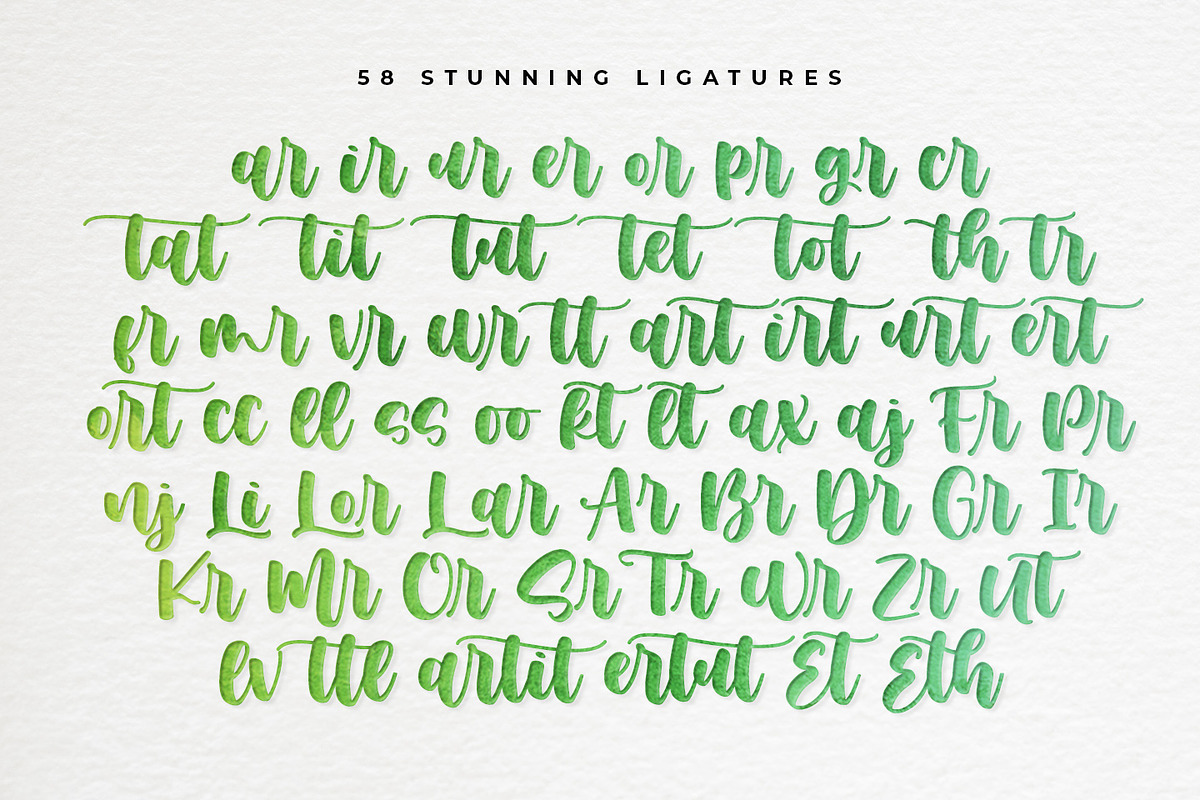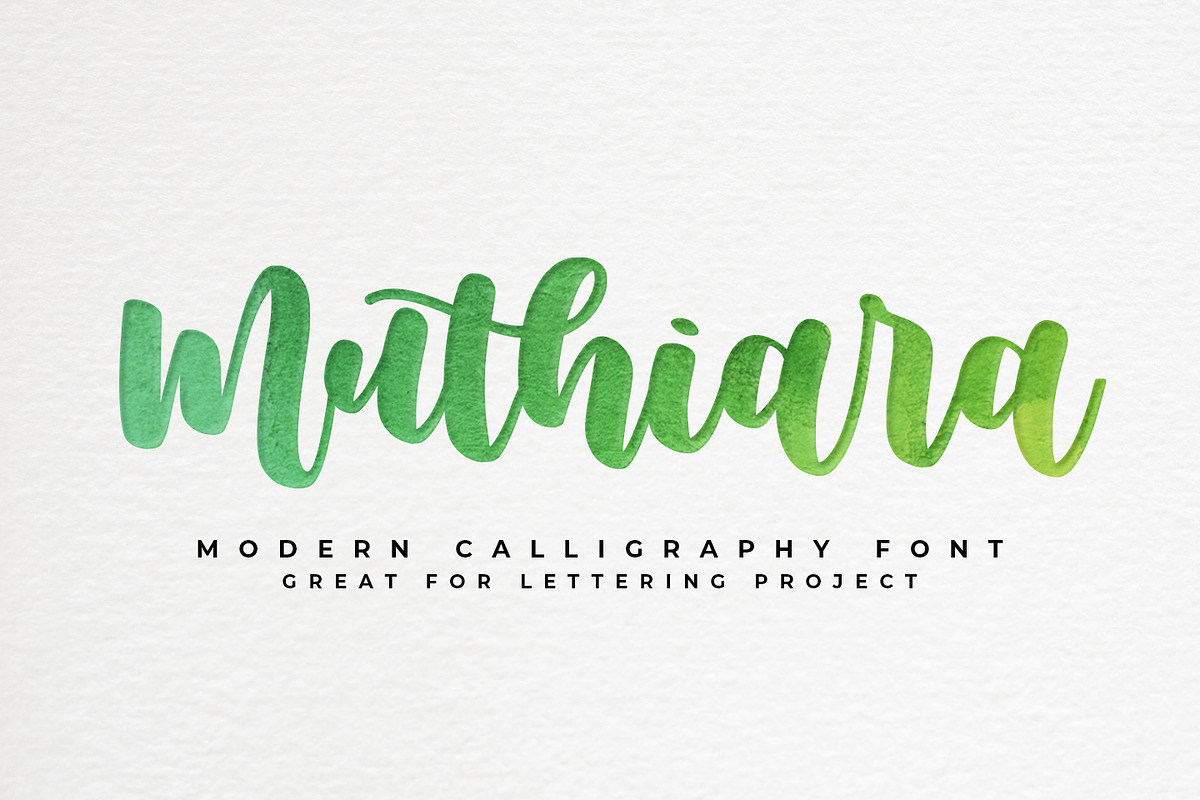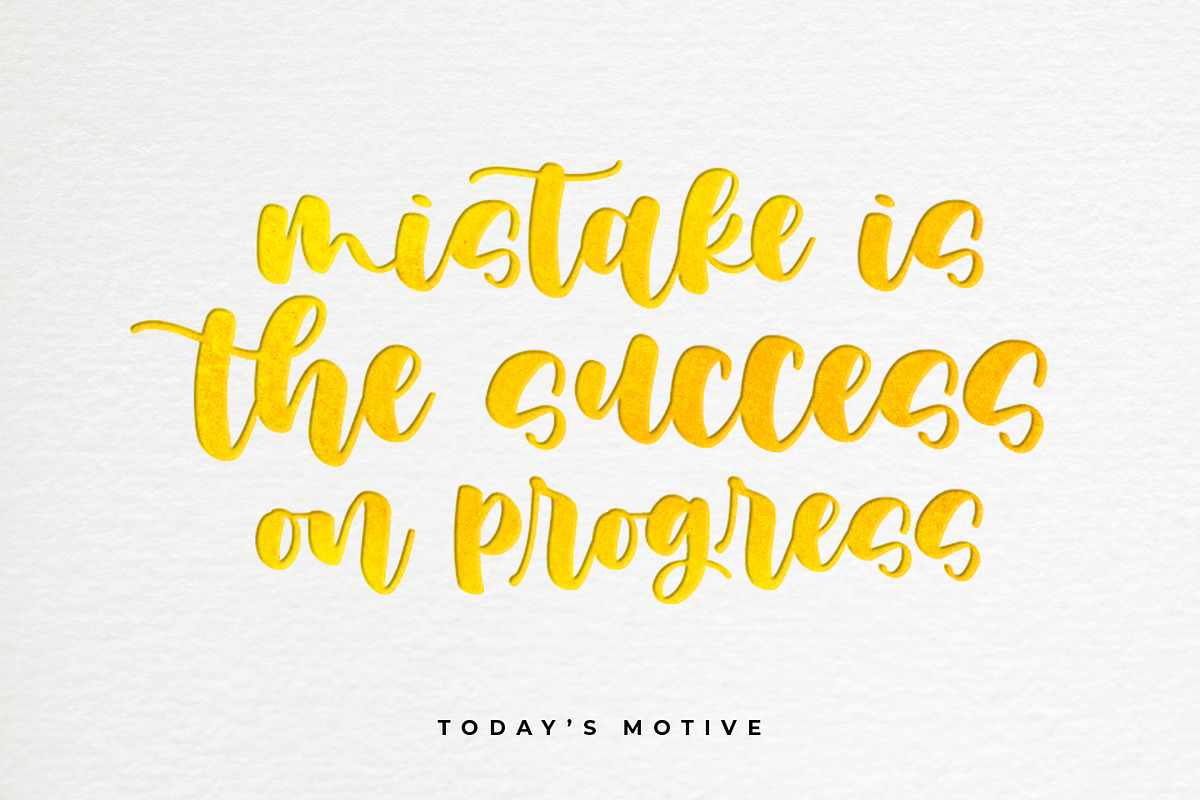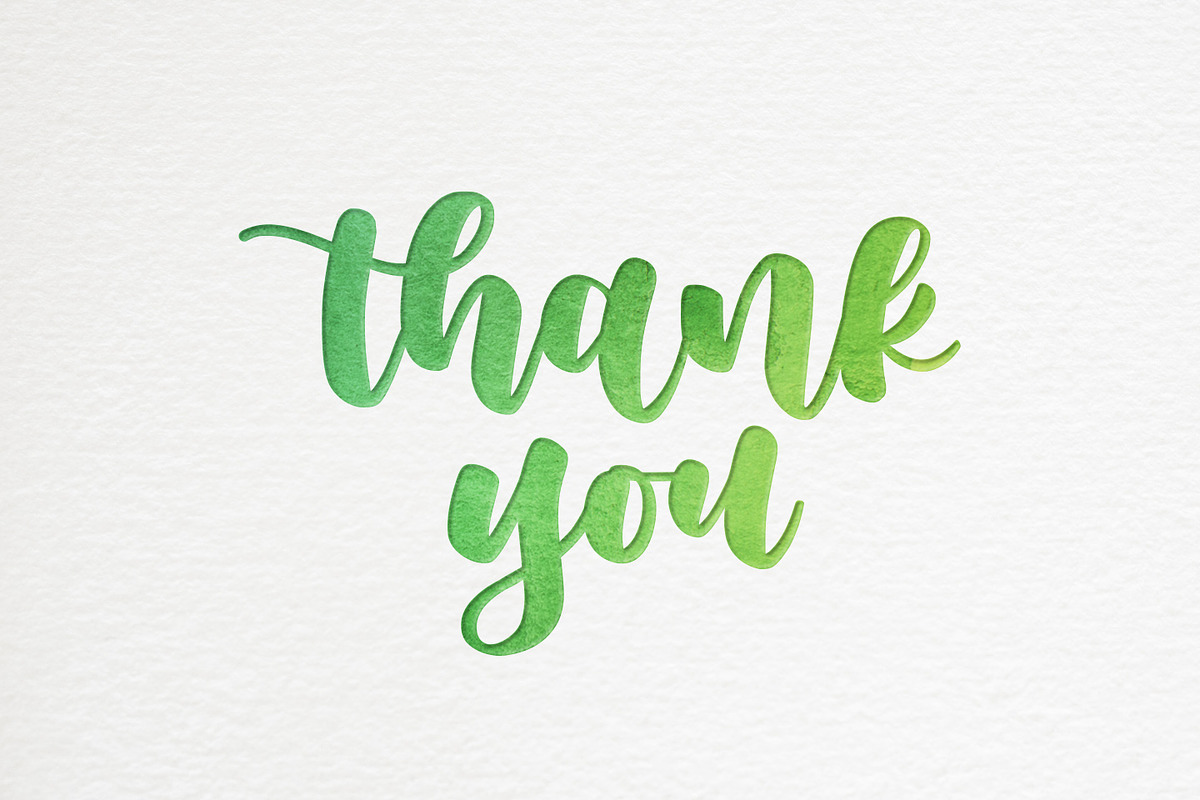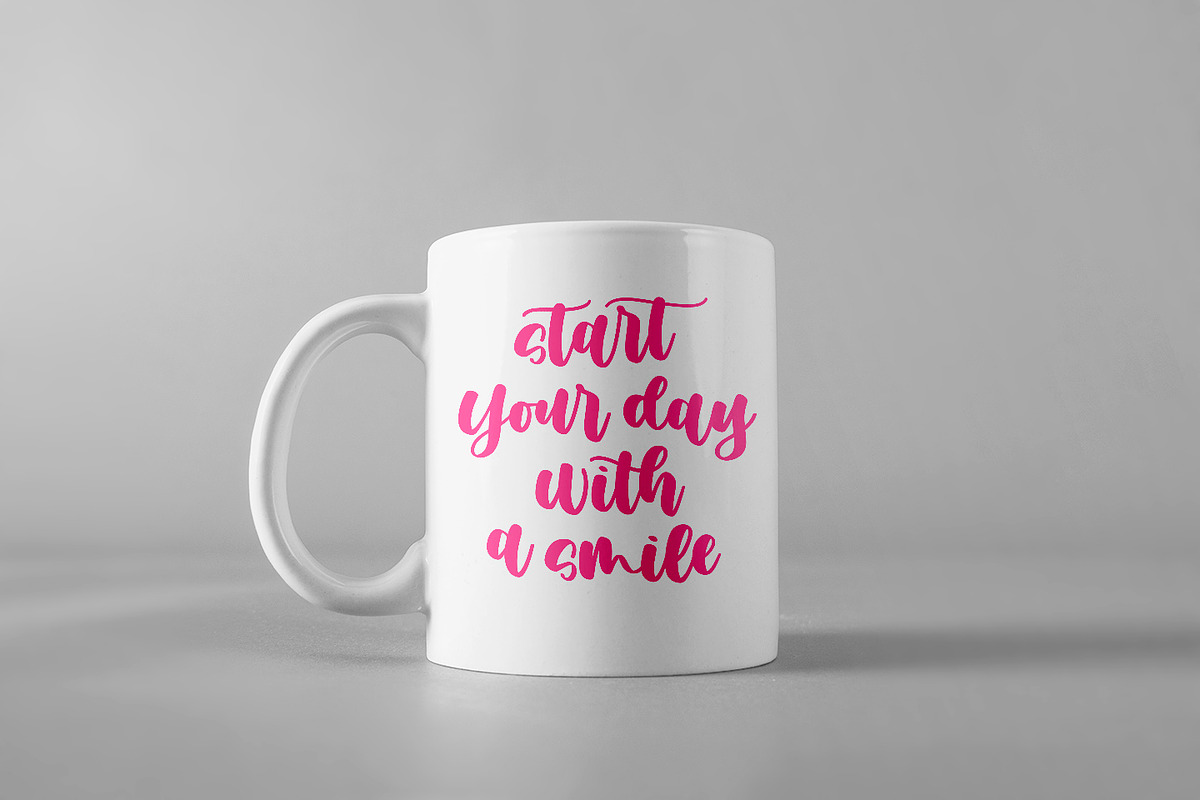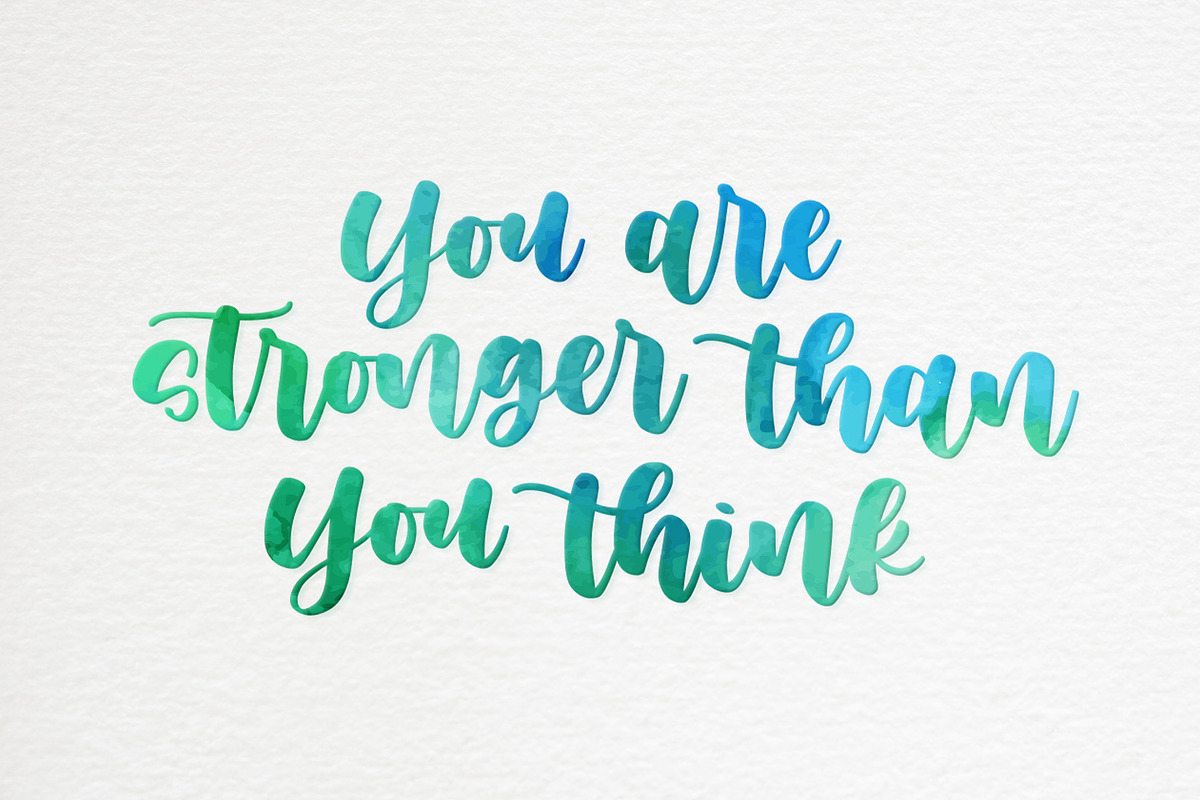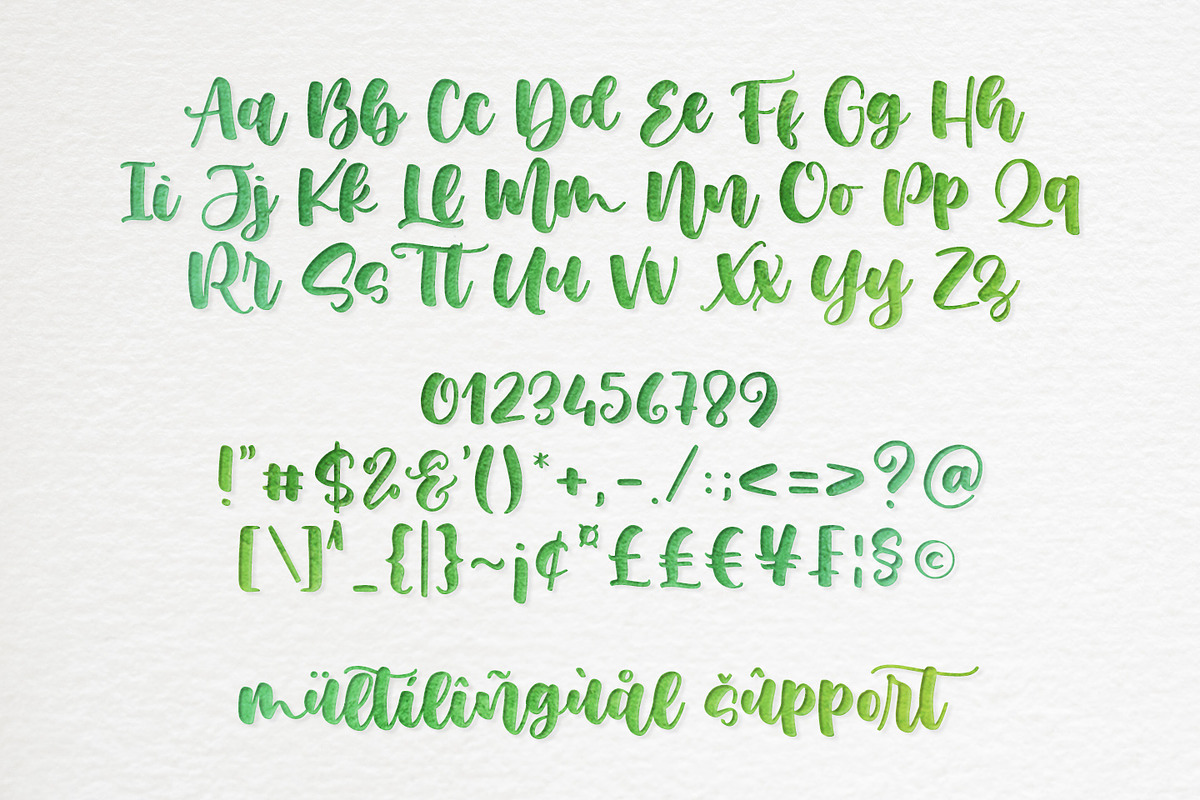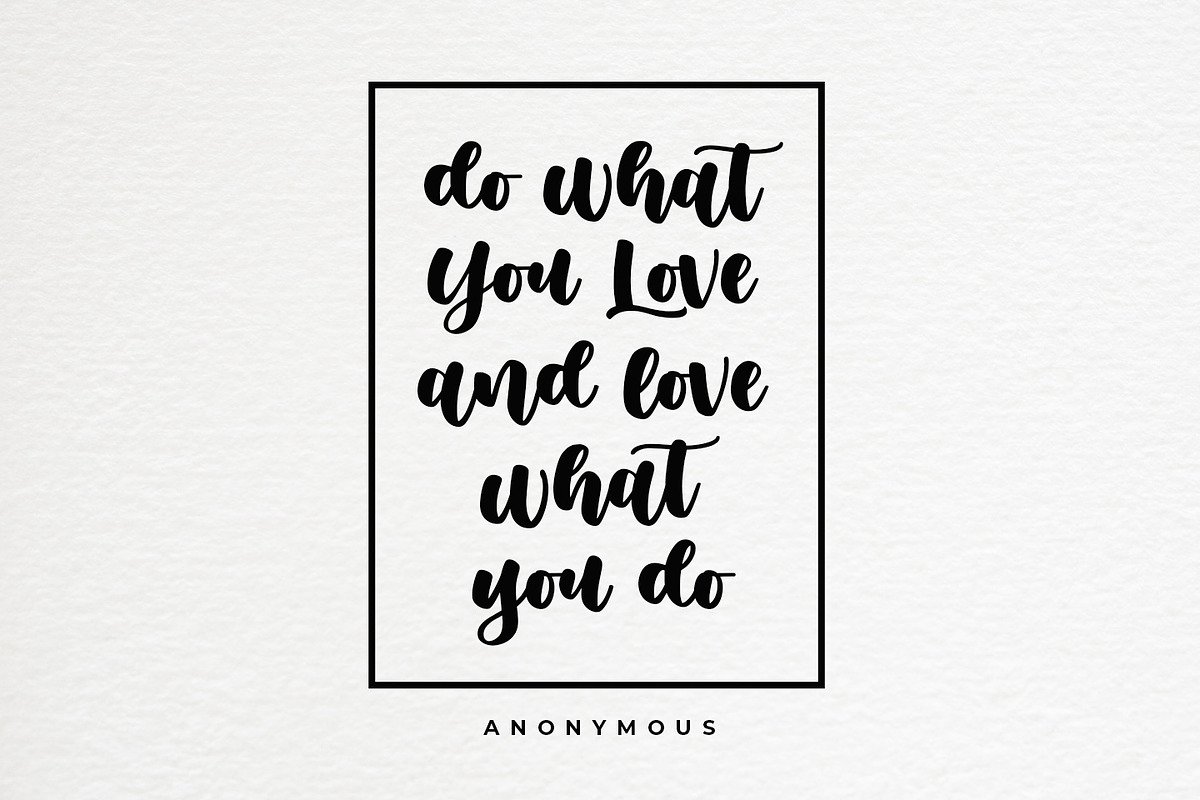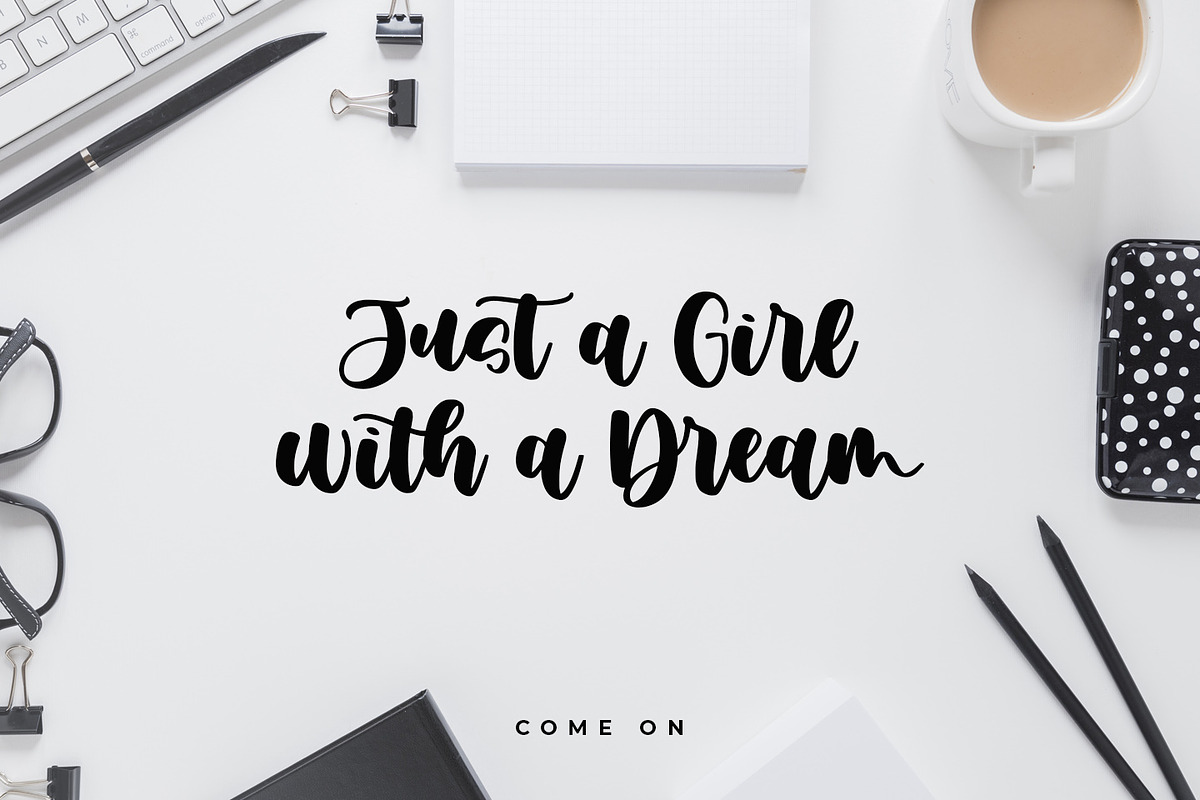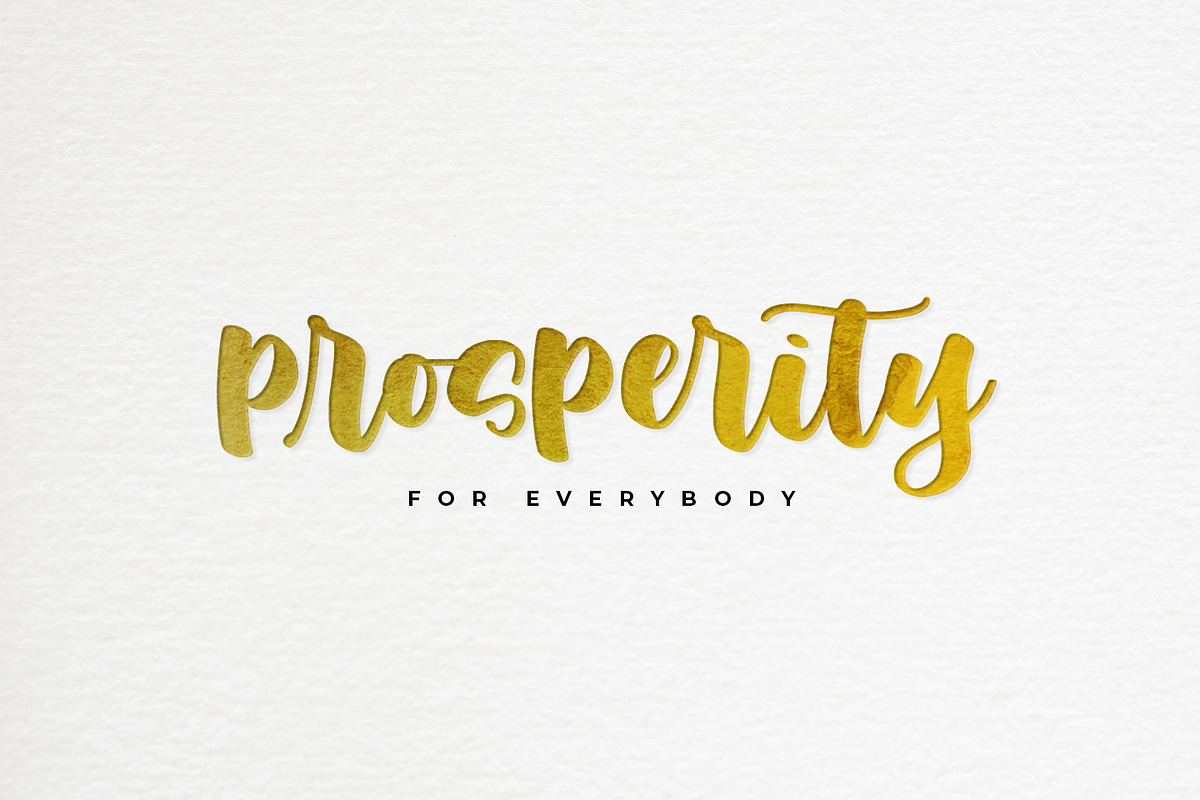
Muthiara
introducing
MUTHIARA modern calligraphy font
This font is natural and so beautiful.
It is perfect for Lettering project like cutting silhouette, T-shirt design, Mug, advertisements, cover books, posters, business cards, social media and more.
It completed with numbers and punctuation. Multilingual support, and came with PUA encoded. I created more than 50 ligatures to make this font very easy to use and look so natural.